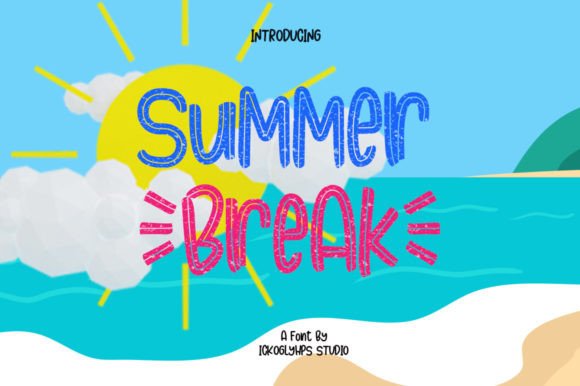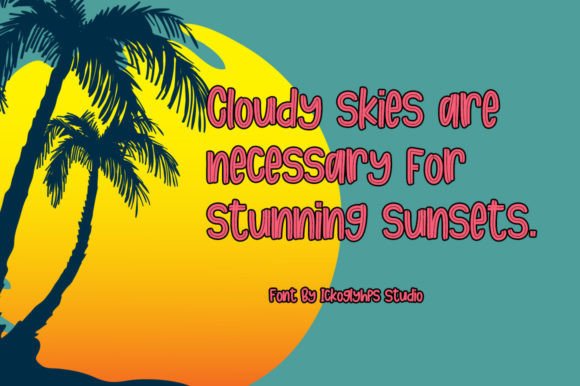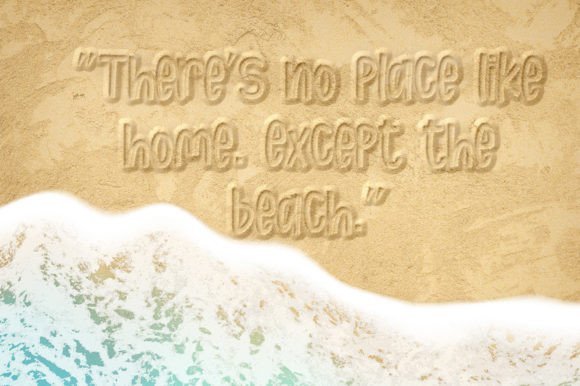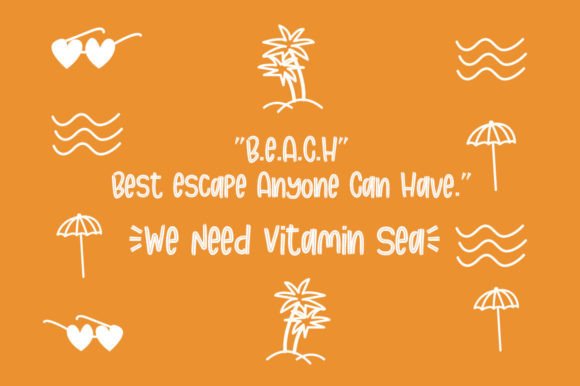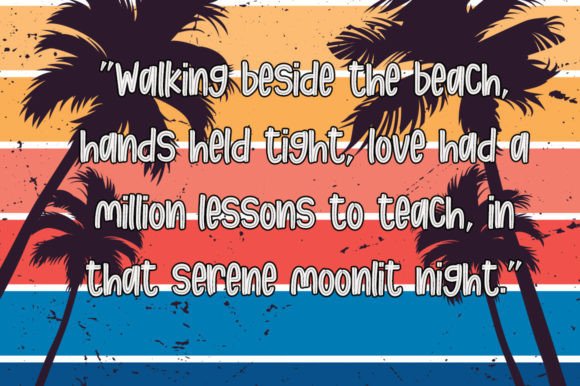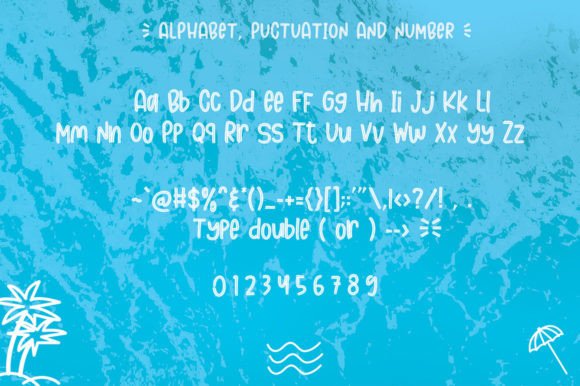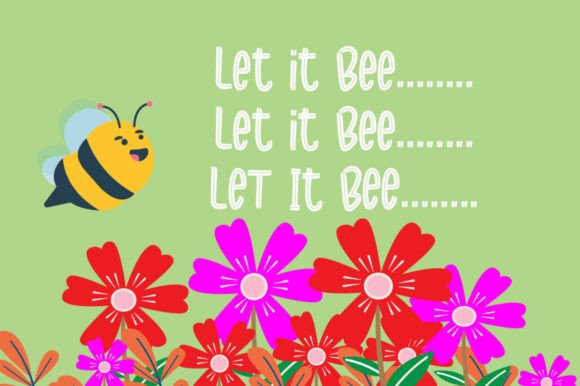
Summer Break Font
About Summer Break Font
Summer Break is an adorable and charming handwritten font that embodies a cute and lovely aesthetic. Infused with a fun touch, this font is perfect for a variety of creative projects, making it an ideal choice for crafts, digital design, presentations, and even greeting cards. With its versatility and delightful style, Summer Break has the potential to become your favorite go-to font for any occasion.
The cuteness of Summer Break is evident in its playful letterforms, creating a visual language that resonates with a lighthearted and joyful spirit. This makes it a delightful companion for crafting projects, where the font’s charm adds an extra layer of creativity and whimsy.
In digital design, Summer Break brings a touch of fun and liveliness to your creations. Whether you’re working on social media graphics, website elements, or other digital content, this font adds a cute and approachable vibe that engages audiences.
For presentations, Summer Break infuses a sense of playfulness, making your slides more visually appealing and memorable. The font’s versatility ensures that it can adapt to different presentation themes, adding a cheerful touch to your content.
In greeting cards, Summer Break becomes the perfect choice for conveying warmth and friendliness. Its lovely handwritten style adds a personal and authentic feel, making your cards stand out with a cute and endearing charm.
No matter the occasion, Summer Break is designed to be a reliable and favorite font in your toolkit. Its versatility and adorable aesthetic make it suitable for a wide range of projects, ensuring that it brings a touch of joy and cuteness to your favorite creative endeavors.
In summary, Summer Break is more than just a font; it’s a design companion that brings cuteness and loveliness to your creative projects. Whether you’re crafting, designing digitally, presenting, or creating greeting cards, Summer Break has the potential to be your go-to font for adding a delightful and charming touch to any occasion.